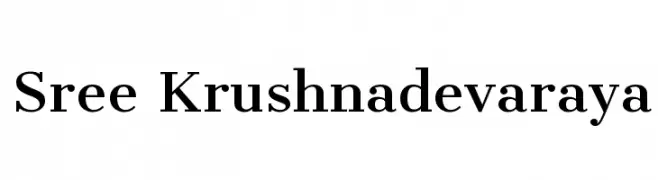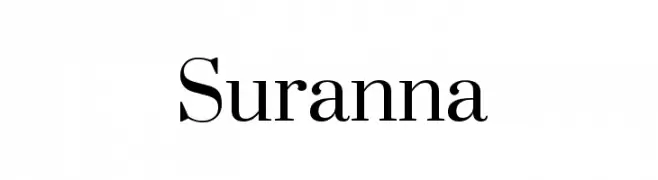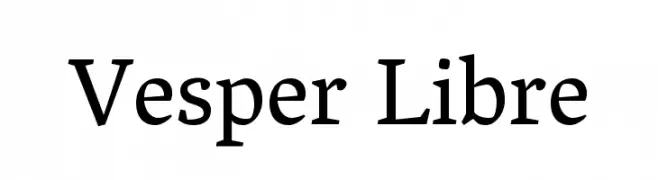
A classic serif font with elegant strokes and refined serifs.
A classic serif font with elegant strokes and refined design.
A classic serif font with elegant, refined serifs and balanced proportions.
A refined serif font with elegant, light-weight characters.
A refined serif font with elegant strokes and balanced design.
A light, elegant serif font with a refined and sophisticated appearance.
A classic serif font with a modern touch, featuring elegant and refined letterforms.
A classic serif font with modern elegance and refined letterforms.